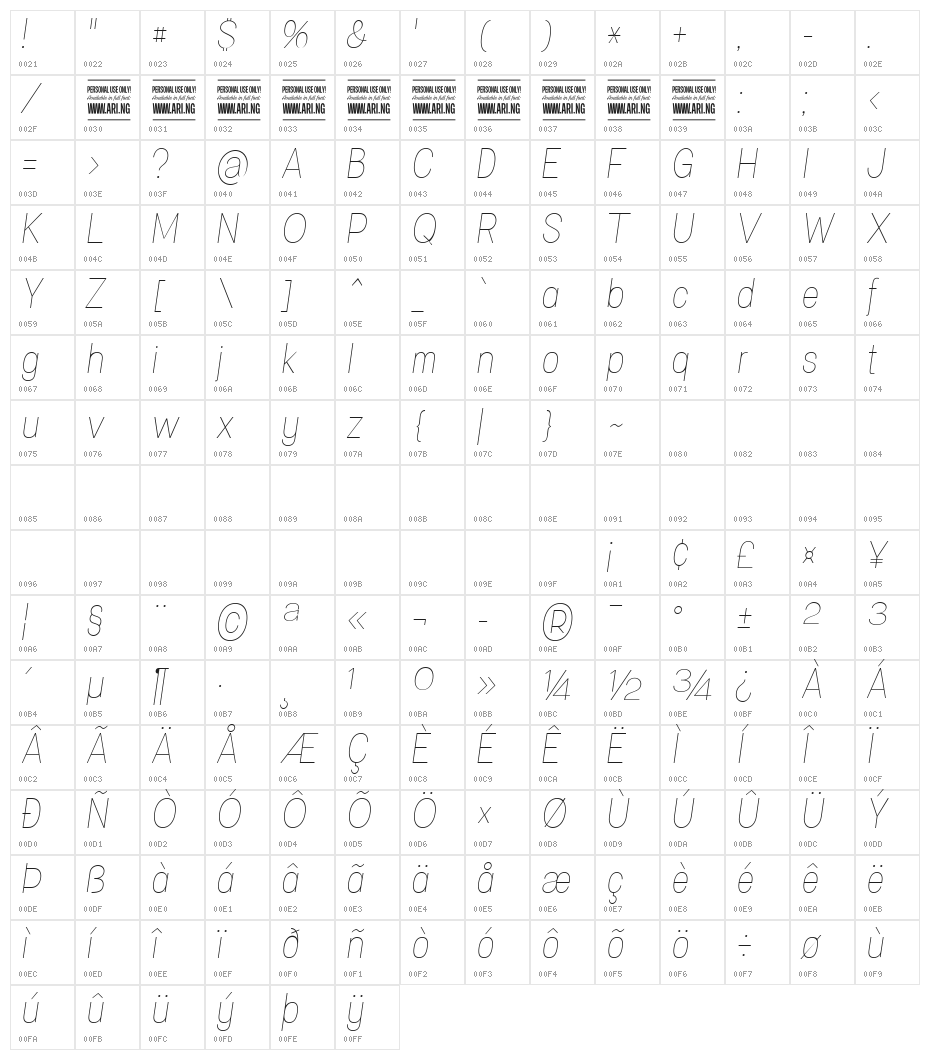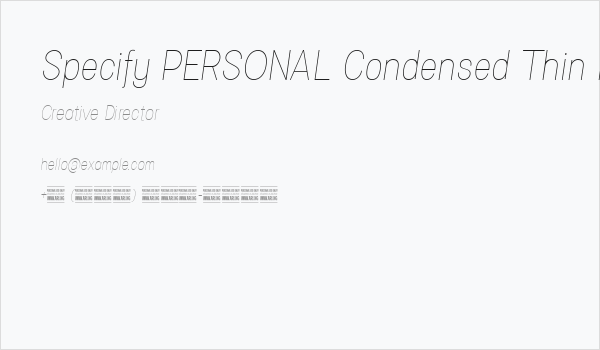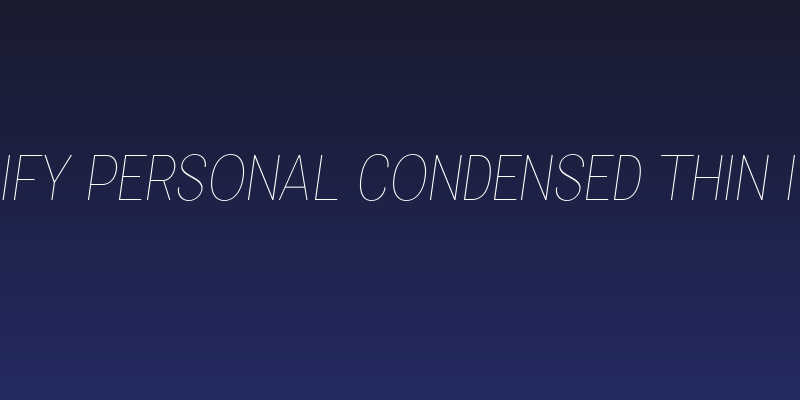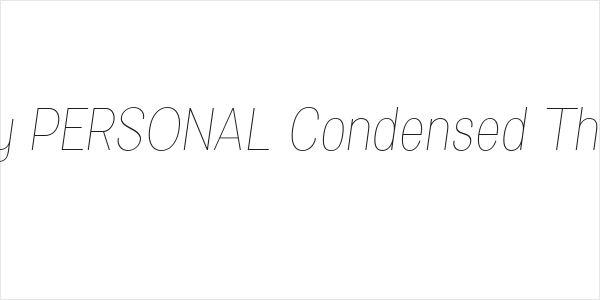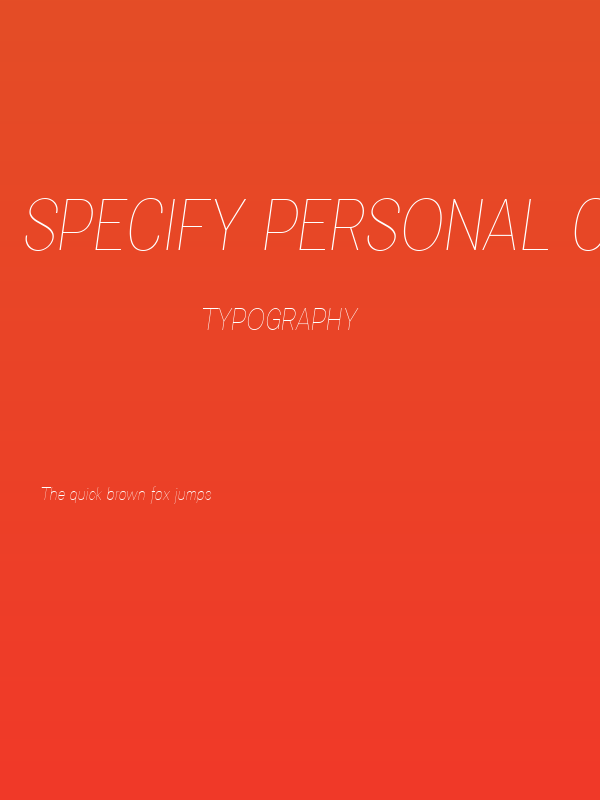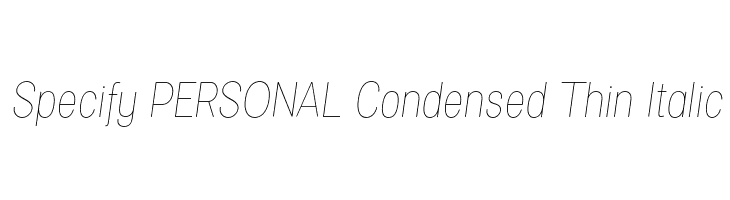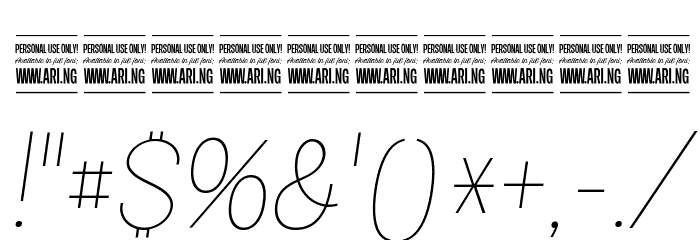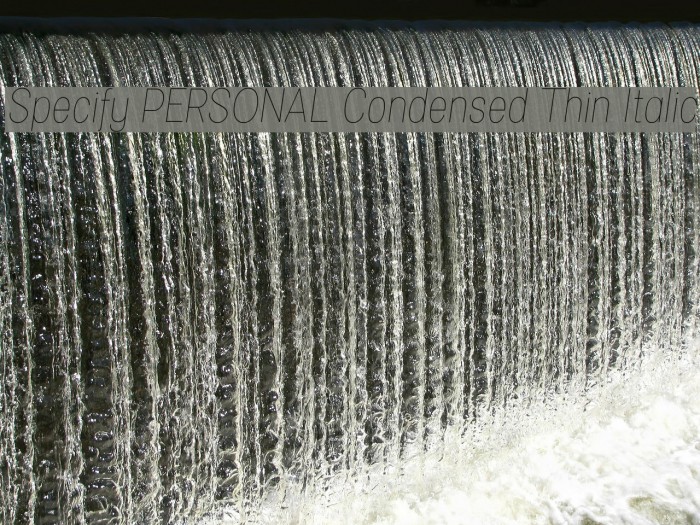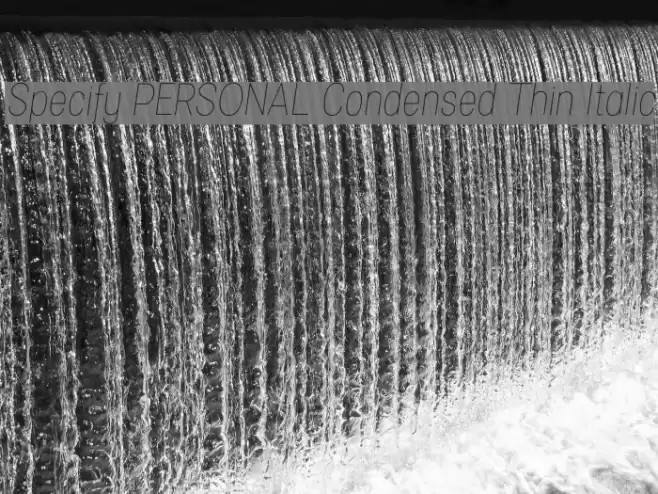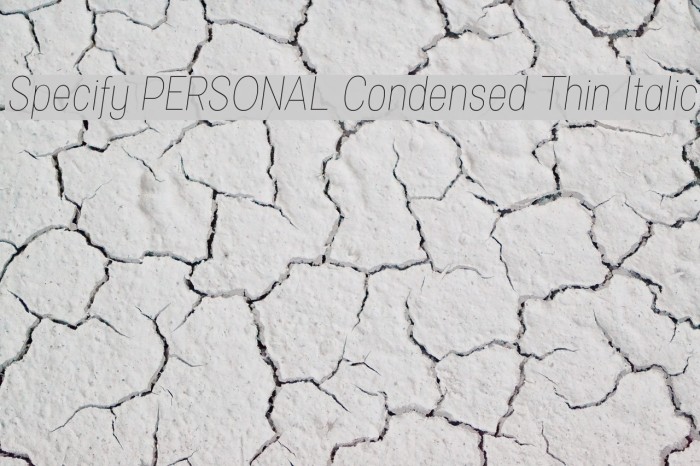
Specify PERSONAL Condensed Thin Italic Font
Specify PERSONAL Condensed Thin Italic Description
This font features a sleek and modern design with a thin, delicate stroke that gives it an elegant appearance. The characters are slightly condensed, enhancing its streamlined look, and the italic style adds a dynamic and sophisticated touch. The font maintains a consistent line weight throughout, contributing to its minimalist aesthetic. Its clean and crisp lines make it highly legible, even at smaller sizes. The spacing between characters is tight, which complements its condensed form, making it ideal for space-saving applications. This font is versatile, suitable for both digital and print media, and can be used to convey a sense of modernity and professionalism.
| Use Case | Headlines, Body text, Logos |
| Proposed Projects | Ideal for branding, editorial design, fashion magazines, and modern websites. |